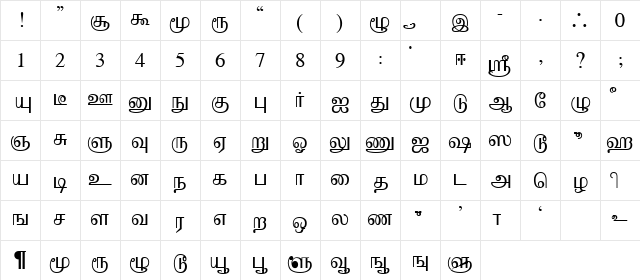
Leelai Regular
Design Context for Leelai Typeface
Leelai takes a measured approach to typography — its balanced proportions and neutral character make it a reliable workhorse for both digital and print work.